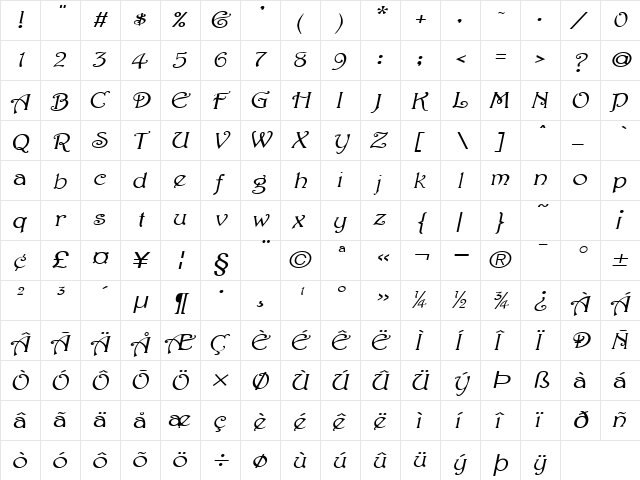
Parisian-Extended Italic
Design Context for Parisian-Extended Typeface
Parisian-Extended is a composed and adaptable typeface that performs quietly and consistently across a wide range of design contexts. The slanted form adds forward momentum and visual energy.
Pro Tip: Try Parisian-Extended for annotation and caption copy alongside an upright companion — the contrast in angle creates a dynamic but ordered typographic system.